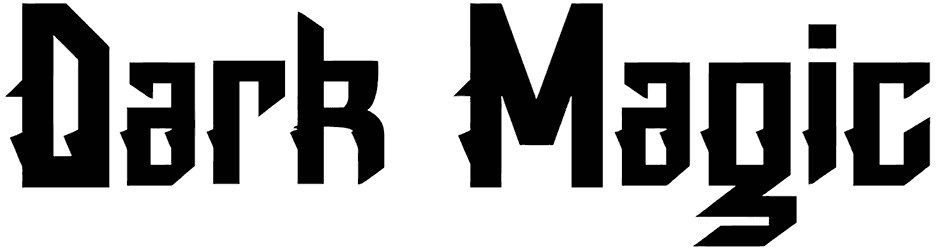
Dark Magic Font
Here we come again with a glamorous gothic font, such as the Dark Magic, that comes with a geometrical style and carries a feeling of vintage, eerie, tenderness, or jauntiness.
This square font can be perfectly matched with a wide range of editorial projects, including movie posters, applications, video game brochures, stickers, and billboards. In addition to this masterpiece, we have compiled a vast collection of artistic products in the RB collection, which can be found in our archive for your convenience.